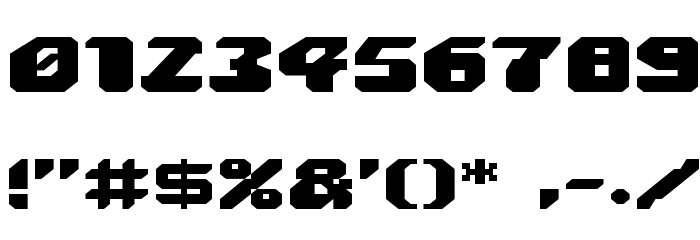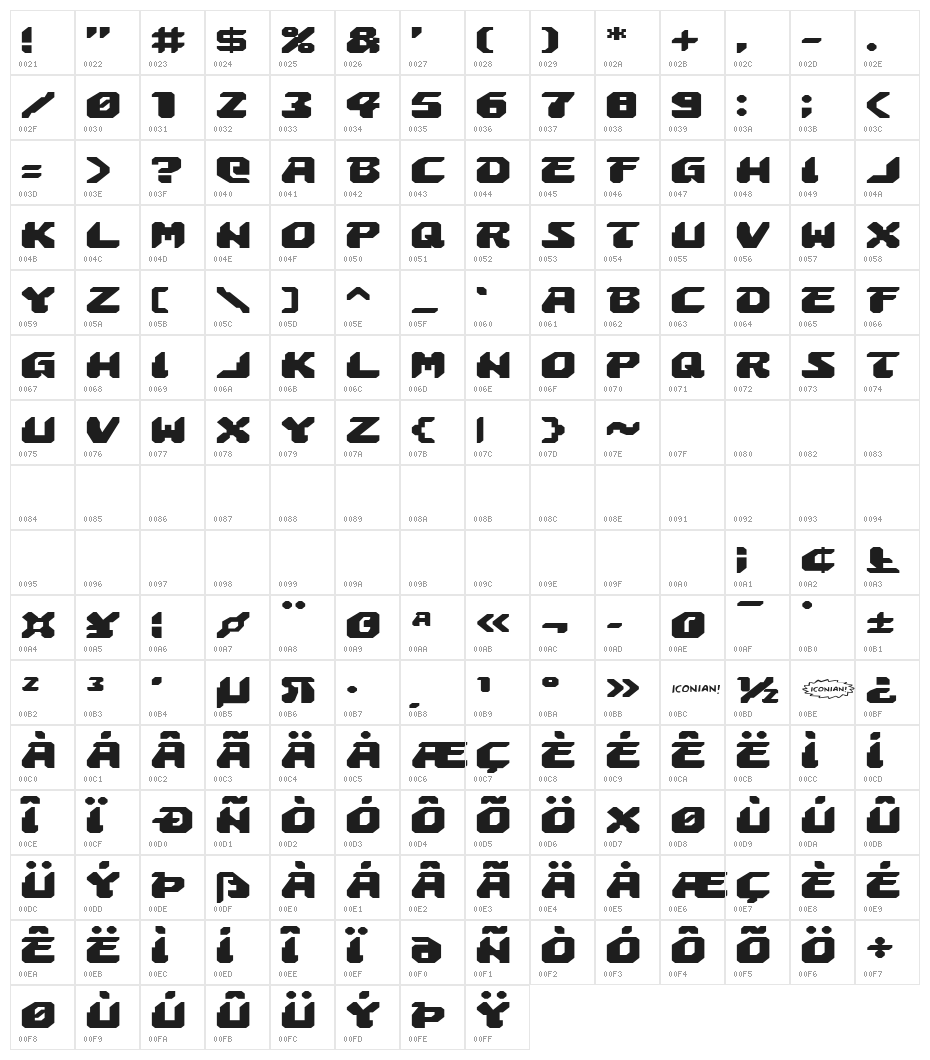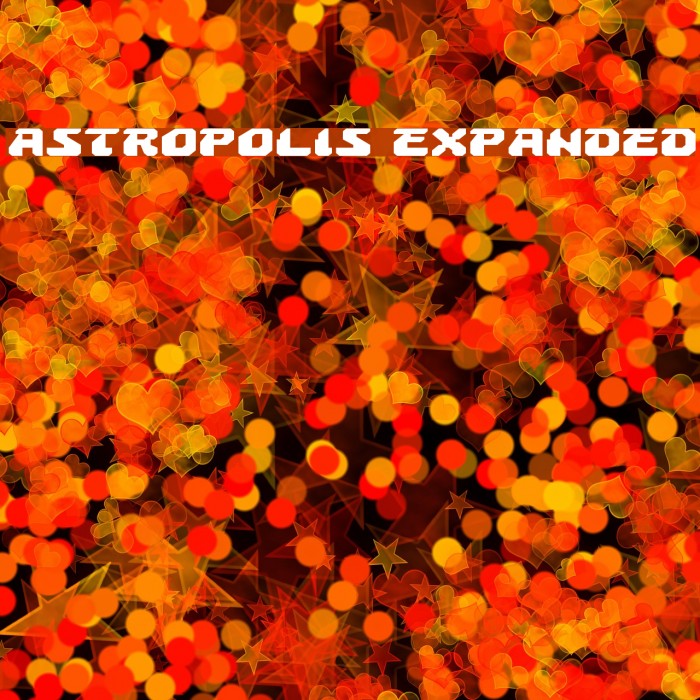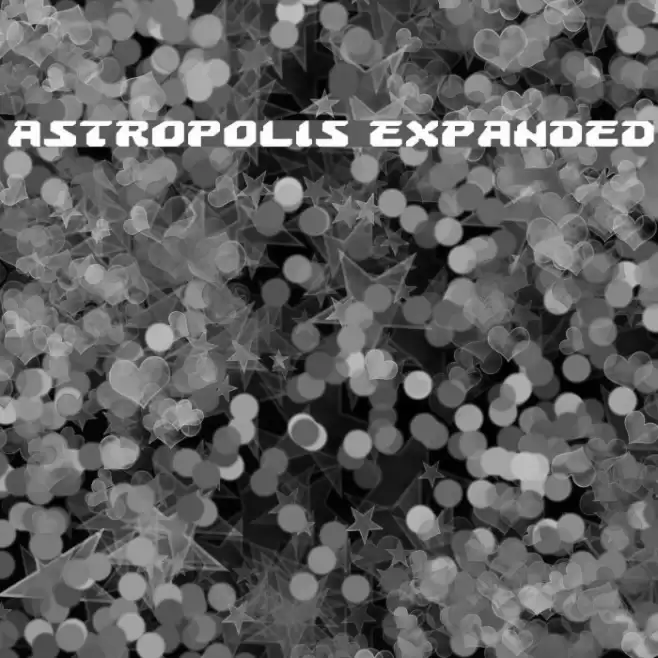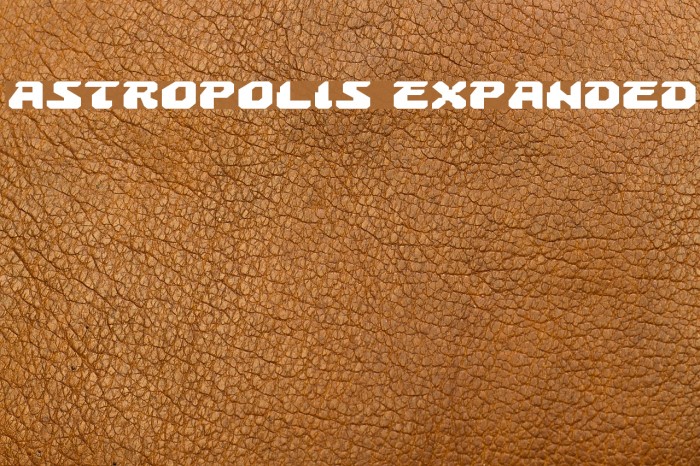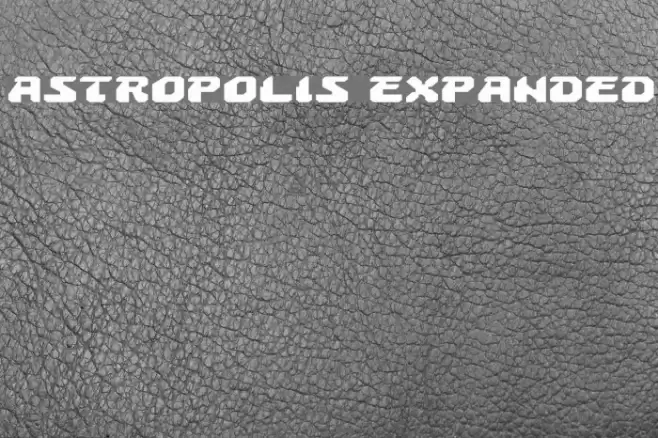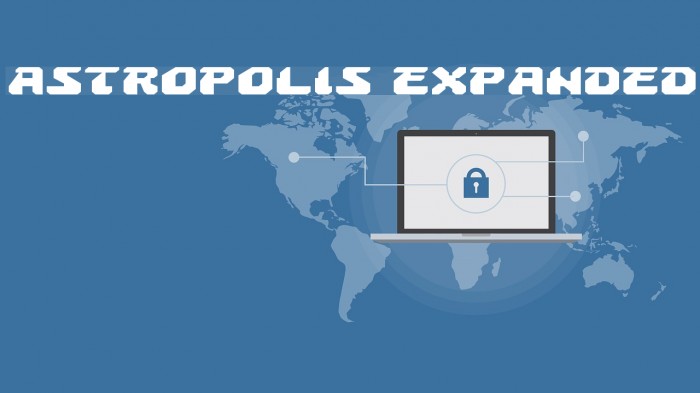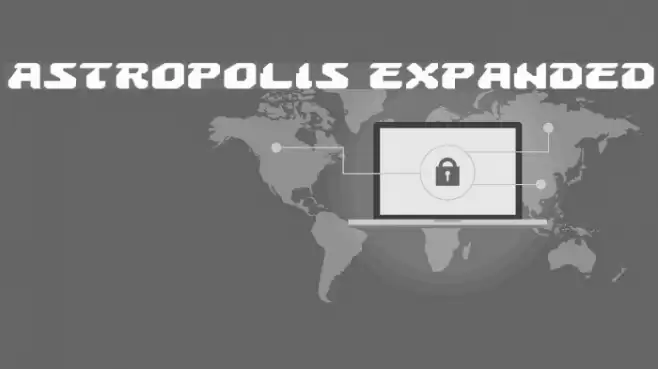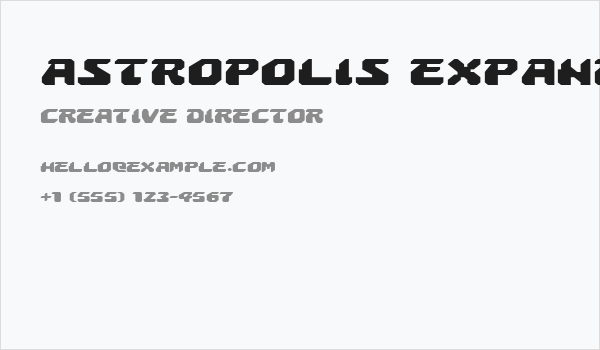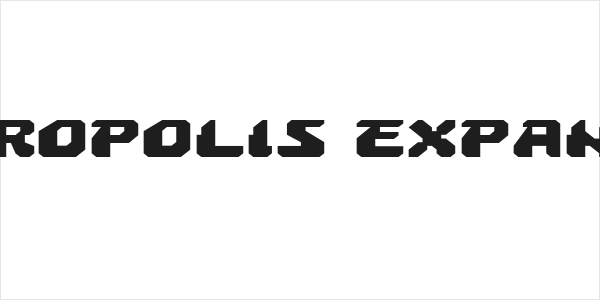
Astropolis Expanded Font
Astropolis Expanded Description
This font features a bold and futuristic design with geometric shapes and sharp angles. The characters are distinctly wide, giving a sense of expansion and space. The uppercase and lowercase letters maintain a consistent style, with a strong emphasis on horizontal lines and angular cuts. The numerals and special characters follow the same design principles, ensuring uniformity across all glyphs. This font's unique style makes it stand out, ideal for projects that require a modern and bold aesthetic.
| Proposed Projects | Ideal for sci-fi themed designs, video game titles, technology branding, and futuristic posters. |